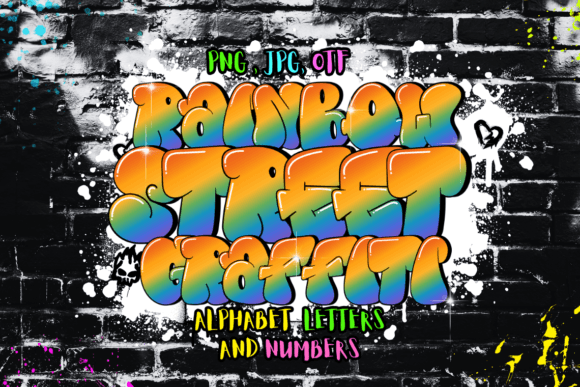
Rainbow Street Graffiti Font: Elevate Your Designs with Vibrant Colors
Are you looking for a font that can add a burst of creativity and color to your projects? Look no further than the Rainbow Street Graffiti Color font. This captivating handwritten style font is perfect for those seeking inspiration, celebrating special occasions, or simply wanting to infuse their designs with a splash of color.
Key Features of Rainbow Street Graffiti Color Font
- Handwritten Style: The Rainbow Street Graffiti Color font boasts a unique, handwritten style that adds a personal touch to your designs.
- Vibrant Alphabet Street Art Graphics: The font features vibrant alphabet street art graphics that are sure to make your designs stand out.
- Dynamic Design: The font’s dynamic design makes it suitable for a wide range of applications, from festive celebrations to bold art installations.
Project Ideas Using Rainbow Street Graffiti Color Font
The Rainbow Street Graffiti Color font is versatile and can be used in various projects. Here are some ideas to get you started:
- Festive Celebrations: Use the font to create festive posters, flyers, and social media graphics for special occasions like holidays, birthdays, and anniversaries.
- Bold Art Installations: The font’s dynamic design makes it perfect for bold art installations, exhibitions, and displays.
- Social Media Graphics: Add a splash of color to your social media graphics, including Instagram posts, Facebook covers, and Twitter headers.
- Branding and Packaging: Use the font to create eye-catching branding and packaging designs that stand out on store shelves.
Benefits of Using Rainbow Street Graffiti Color Font
The Rainbow Street Graffiti Color font offers several benefits, including:
- Unique and Creative: The font’s handwritten style and vibrant colors make it a unique and creative addition to your designs.
- Time-Saving: The font’s versatility and wide range of applications save you time and effort in finding the perfect font for your projects.
- Professional-Looking Designs: The font’s high-quality design ensures that your projects look professional and visually appealing.
Tips and Tricks for Using Rainbow Street Graffiti Color Font
Here are some tips and tricks to help you get the most out of the Rainbow Street Graffiti Color font:
- Experiment with Colors: Don’t be afraid to experiment with different colors and combinations to find the perfect look for your design.
- Mix and Match: Mix and match the font with other fonts and design elements to create a unique and visually appealing design.
- Pay Attention to Legibility: Ensure that your design is legible and easy to read, especially when using a colorful font like Rainbow Street Graffiti Color.
The Rainbow Street Graffiti Color font is a vibrant and creative addition to any design project. With its captivating handwritten style and vibrant alphabet street art graphics, this font is sure to add a burst of color and creativity to your designs. Whether you’re seeking inspiration, celebrating special occasions, or simply wanting to infuse your designs with a splash of color, the Rainbow Street Graffiti Color font is the perfect choice.
Elevate Your Creations with Rainbow Street Graffiti Color Font